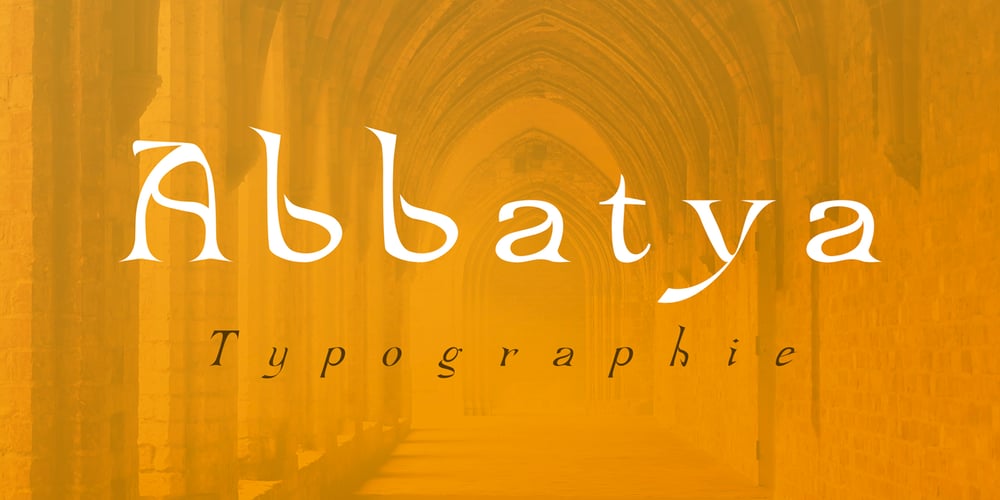
Abbatya Font Family was designed by JC Mehring and published by JC Creation Design. Abbatya contains 5 styles and family package options. Abbatya is a serif typography of medieval design, inspired by Gothic architecture and slightly Celtic oriented.